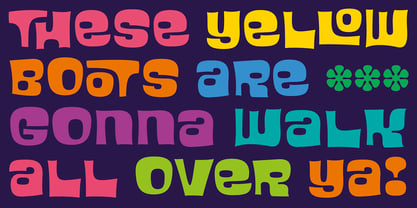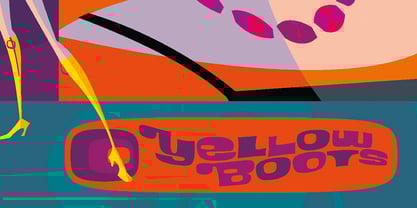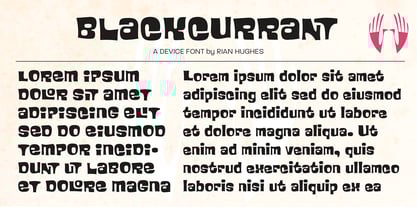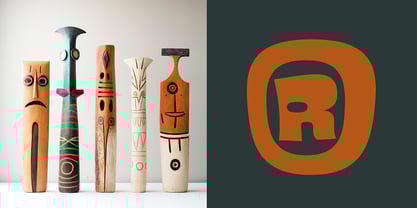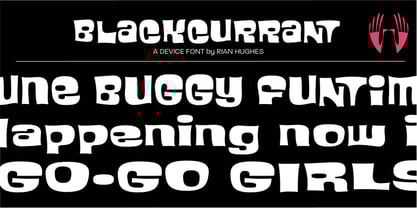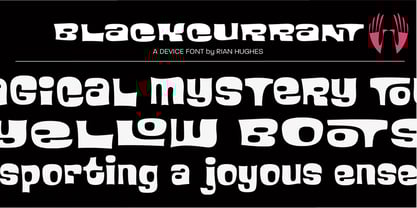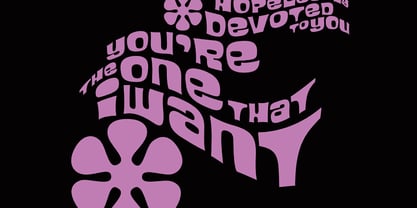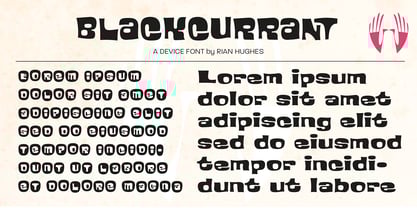
Blackcurrant
Lively, friendly and fun. Blackcurrant is derived from a poster campaign Rian Hughes designed for the youthful Japanese woman's outfitters, Yellow Boots. The original logo formed the basis of the Black version; the narrower Squash version was added fro the commercial release. The lower case was added two years later due to popular demand. In 2010 the font was further accessorised with extensive ligatures, made possible with the then-new Opentype technology.